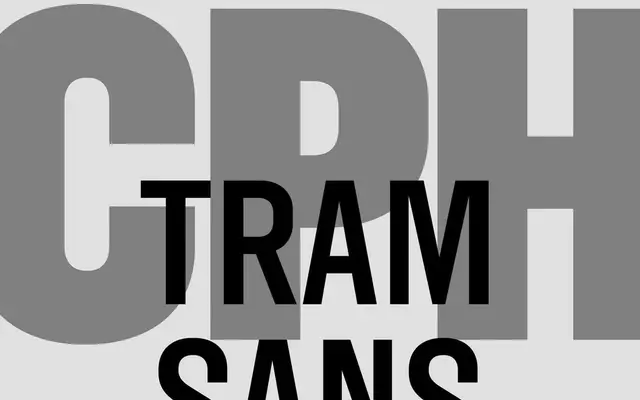
CPH Tram Sans
A modernised, seven-weight sans cut derived from A2-Type's original CPH Tram, trading old-style character for a cleaner, contemporary feel.
Where the original CPH Tram drew on 1920s lettering conventions, CPH Tram Sans strips that ornamentation away in favour of a leaner, more contemporary form suited to current design work. Seven weights run from Light to Black with no italics, covering the range expected of a workhorse display and text sans. The family suits branding, editorial and wayfinding contexts where a clean, upright sans is preferable to anything with historical warmth.
A clean, contemporary sans described as modern and streamlined, positioned as a 2020s counterpart to the old-style CPH Tram; lacks the ornamental qualities of its predecessor, pointing to a geometric or neo-grotesque construction.